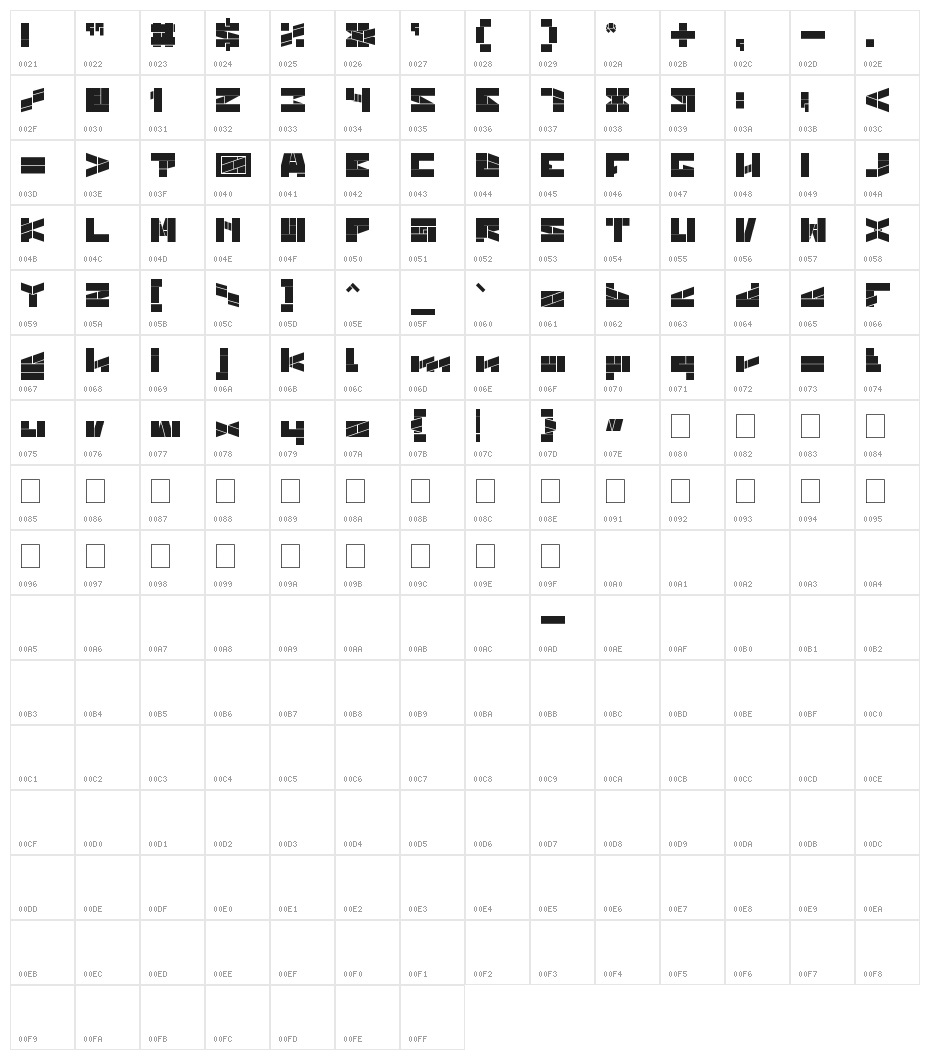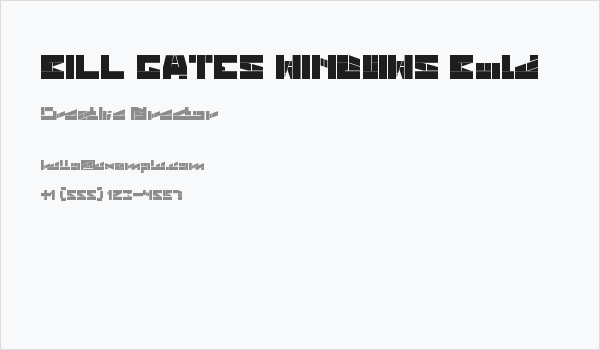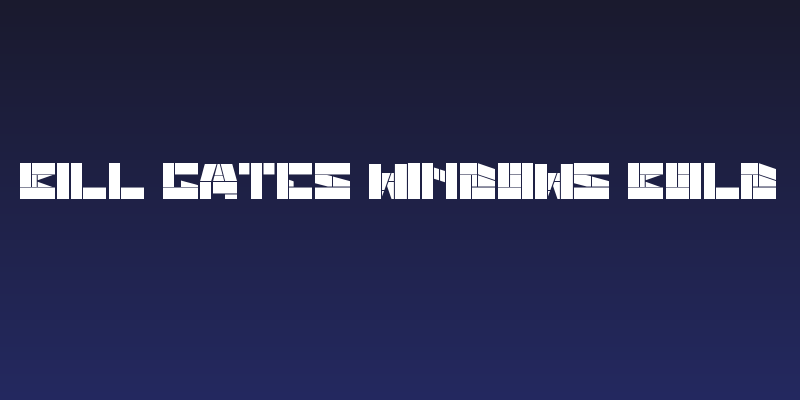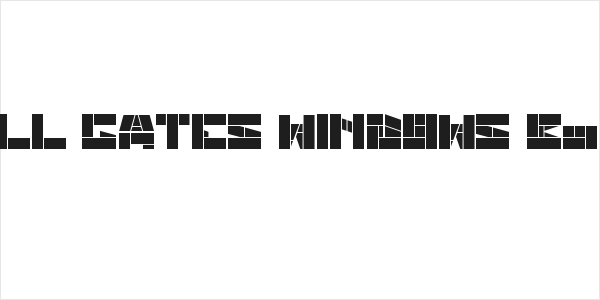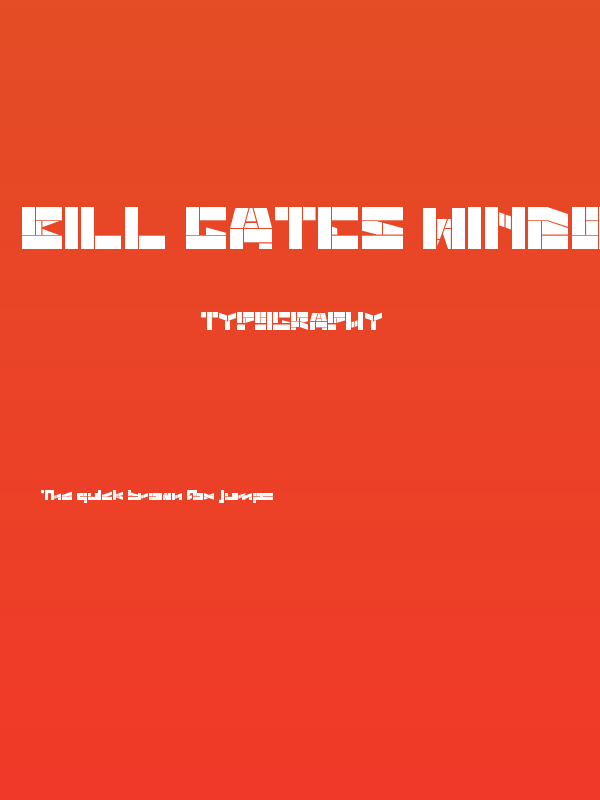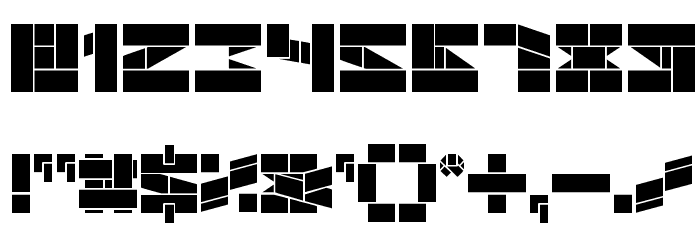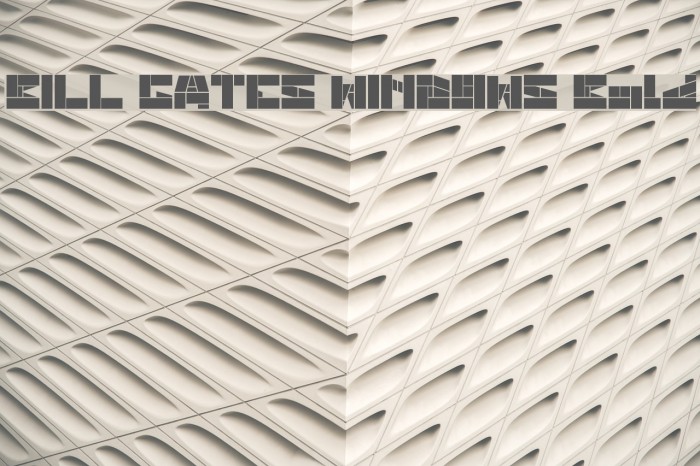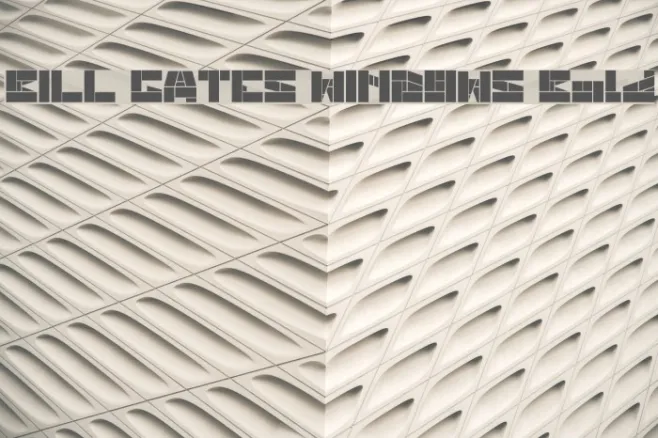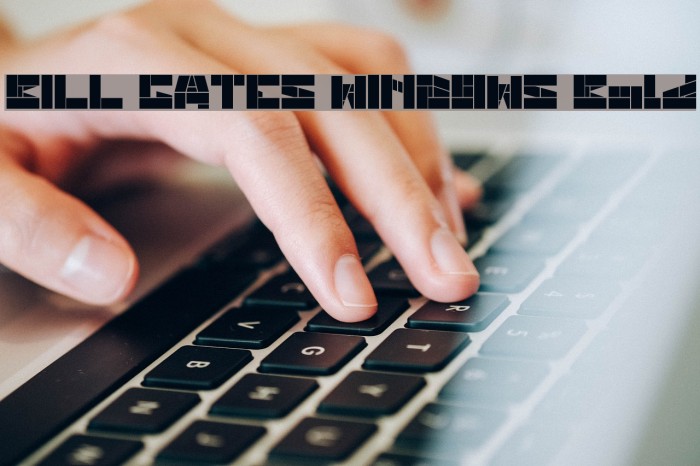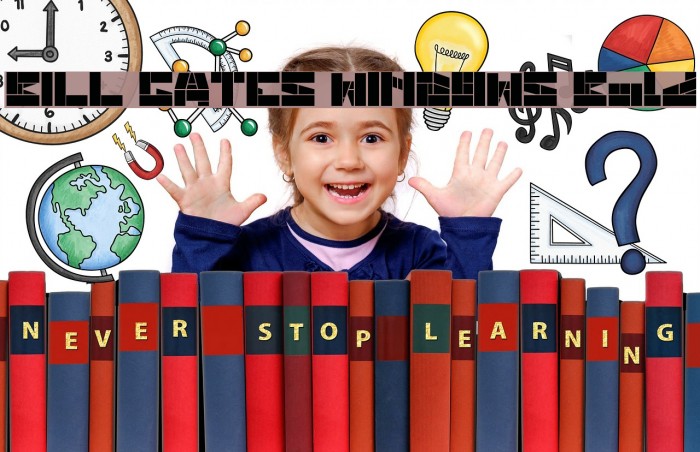
BILL GATES WINDOWS Bold Font
BILL GATES WINDOWS Bold Description
This font features a bold, geometric design with a futuristic and digital aesthetic. Each character is constructed using a series of angular shapes and lines, creating a fragmented and blocky appearance. The uppercase and lowercase letters maintain a consistent style, with sharp edges and a uniform height. The numbers and special characters follow the same design principles, ensuring a cohesive look across all glyphs. This font's unique style makes it stand out, ideal for projects that require a modern and tech-inspired feel.